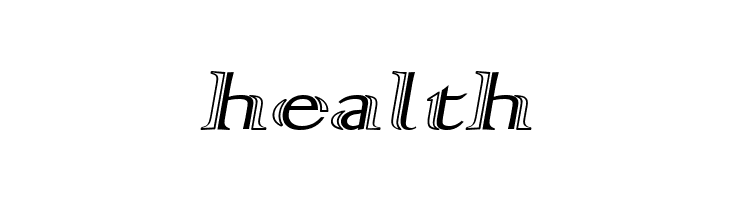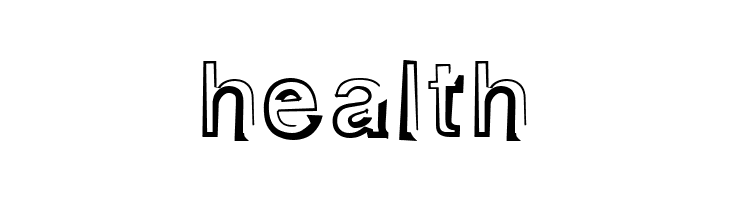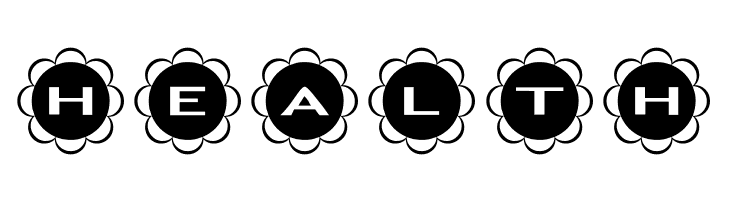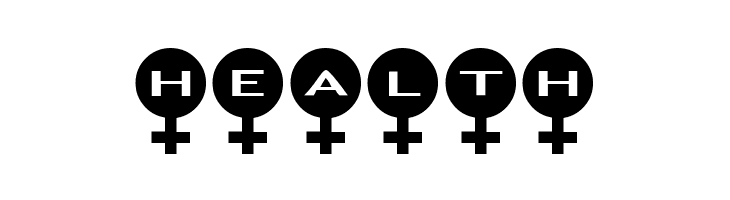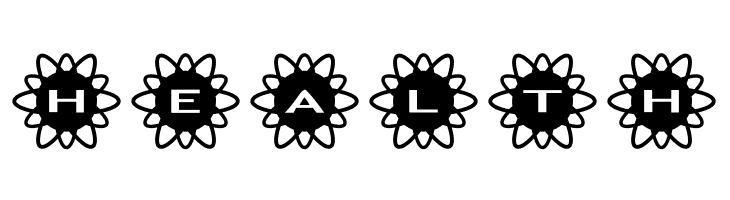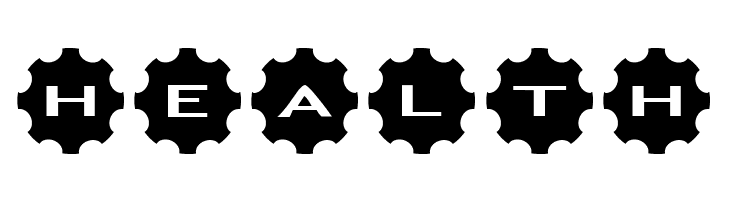
Intricate ornamental designs with vintage and classical influences.
A geometric, outlined font with a modern and structured design.
A bold, rounded font with a playful and friendly style.
A modern sans-serif font with clean lines and a slightly condensed width.
A medieval-inspired font with sharp serifs and unique cross-like details.
An Art Nouveau-inspired font with elegant curves and decorative elements.
A modern, readable typeface with elegant stroke contrast.
A bold, angular font with a strong, geometric presence.
A bold, hollow, wide, and italic font with a striking visual impact.
A bold, decorative font with intricate detailing and high contrast, ideal for eye-catching designs.
A bold, geometric font with a futuristic, industrial style.
A playful, handwritten font with fluid, dynamic strokes and a casual style.
A futuristic, condensed, and oblique font with bold, angular characters.
A playful serif font with a hand-drawn, comic-like style.
A bold pictogram font with government and office-themed icons.
An ornate decorative font with intricate floral and circular patterns.
A decorative serif font with uppercase letters inside maple leaves, ideal for autumn-themed designs.
A bold, textured font with a rustic, handcrafted appearance.
A sleek, ultra-light font with a modern, minimalist design.
A modern, elegant font with clean lines and geometric structure.
A bold, geometric display font with a pixelated, retro video game aesthetic.
A bold, distressed font with a dramatic and artistic style.
A playful, cartoon-like font with bold, exaggerated letterforms.
A modern, rounded typeface with excellent readability and balanced design.
A bold, Western-style font with thick, blocky characters and prominent serifs.
A grungy, distressed font with a chaotic, hand-drawn style.